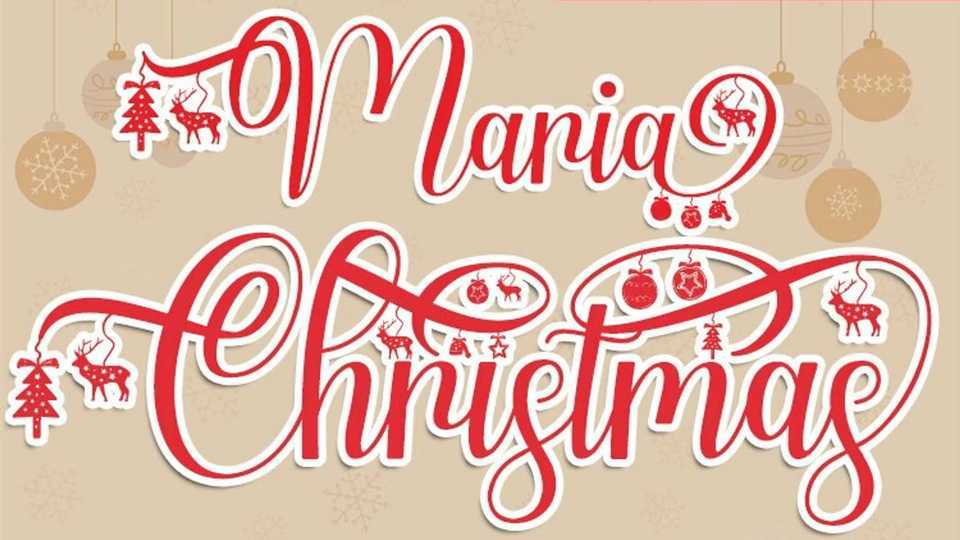
Maria Christmas Font › Fontesk – Download Grátis
Download Maria Christmas font, a very fun, handcrafted calligraphy typeface for all your Christmas designs! greeting cards, posters, seasonal branding, and some product print designs.
Designer: YonTypeStudioCo